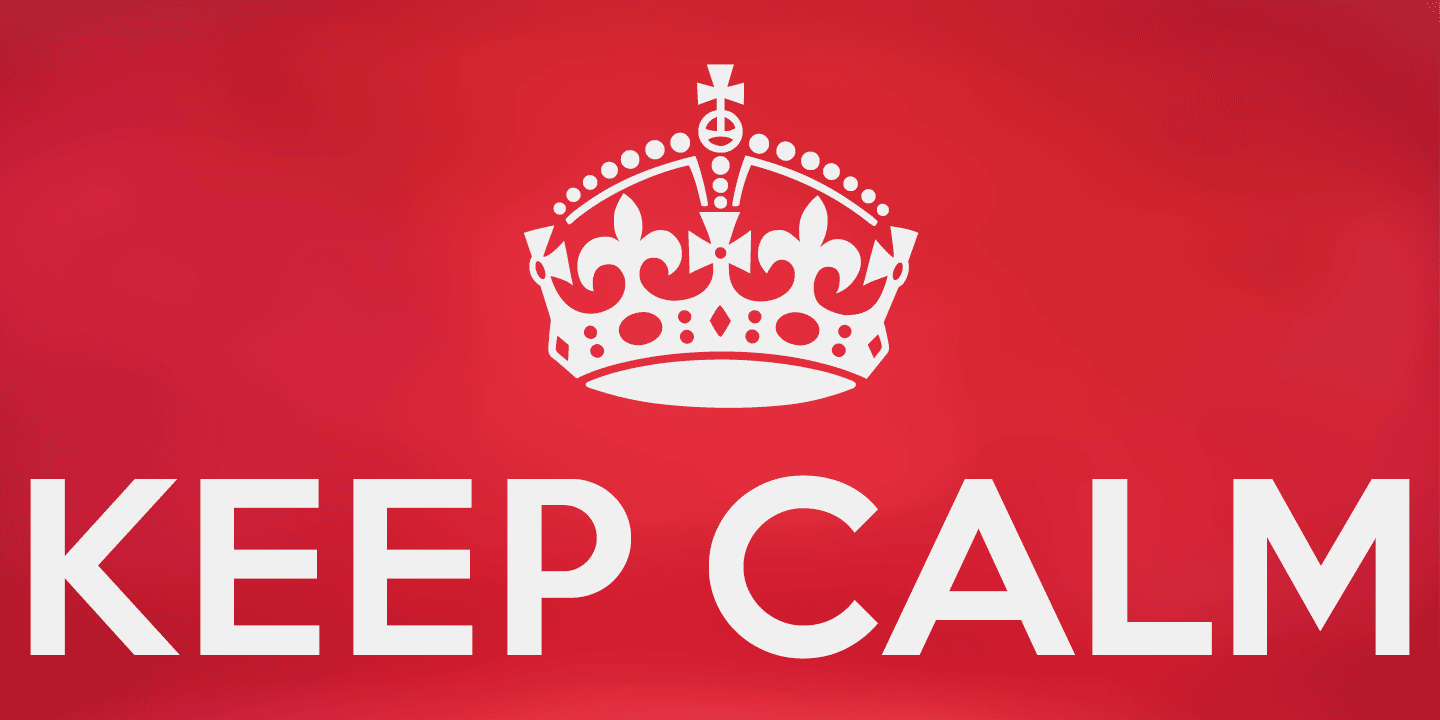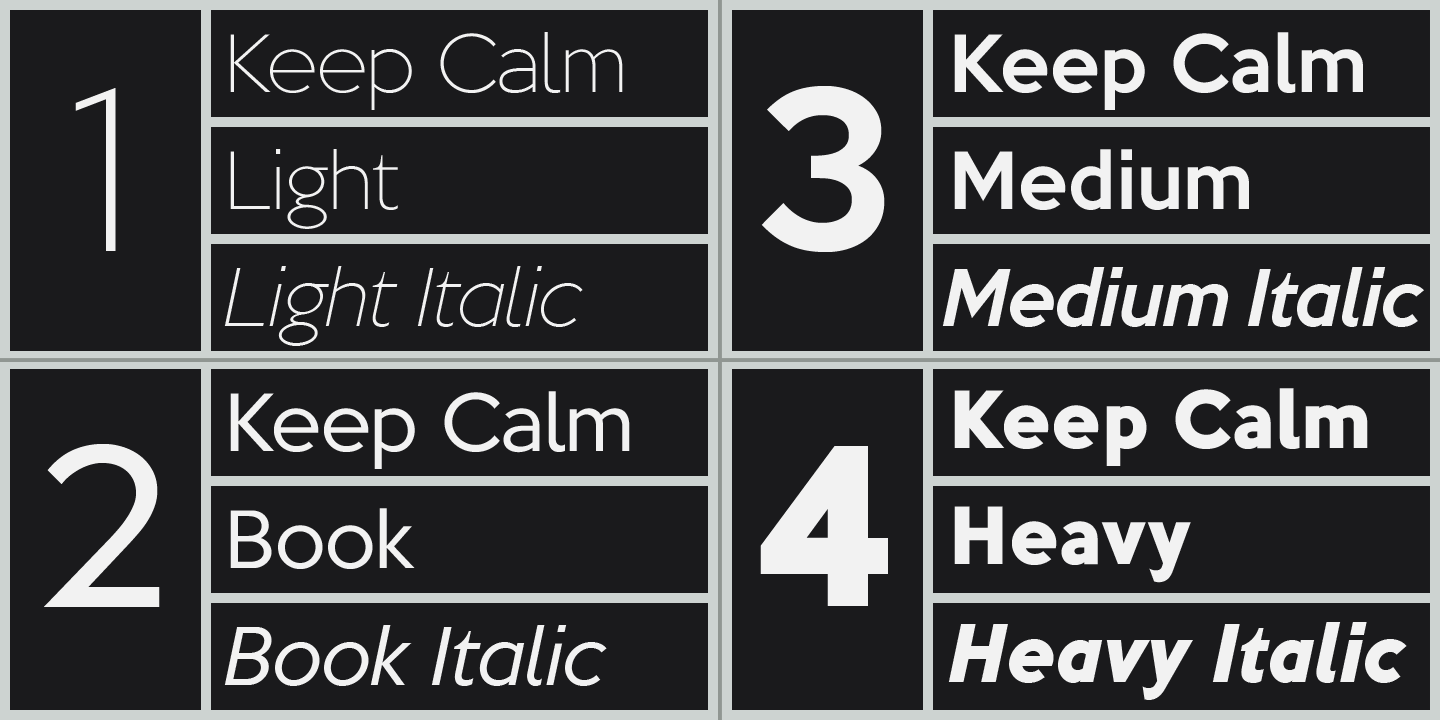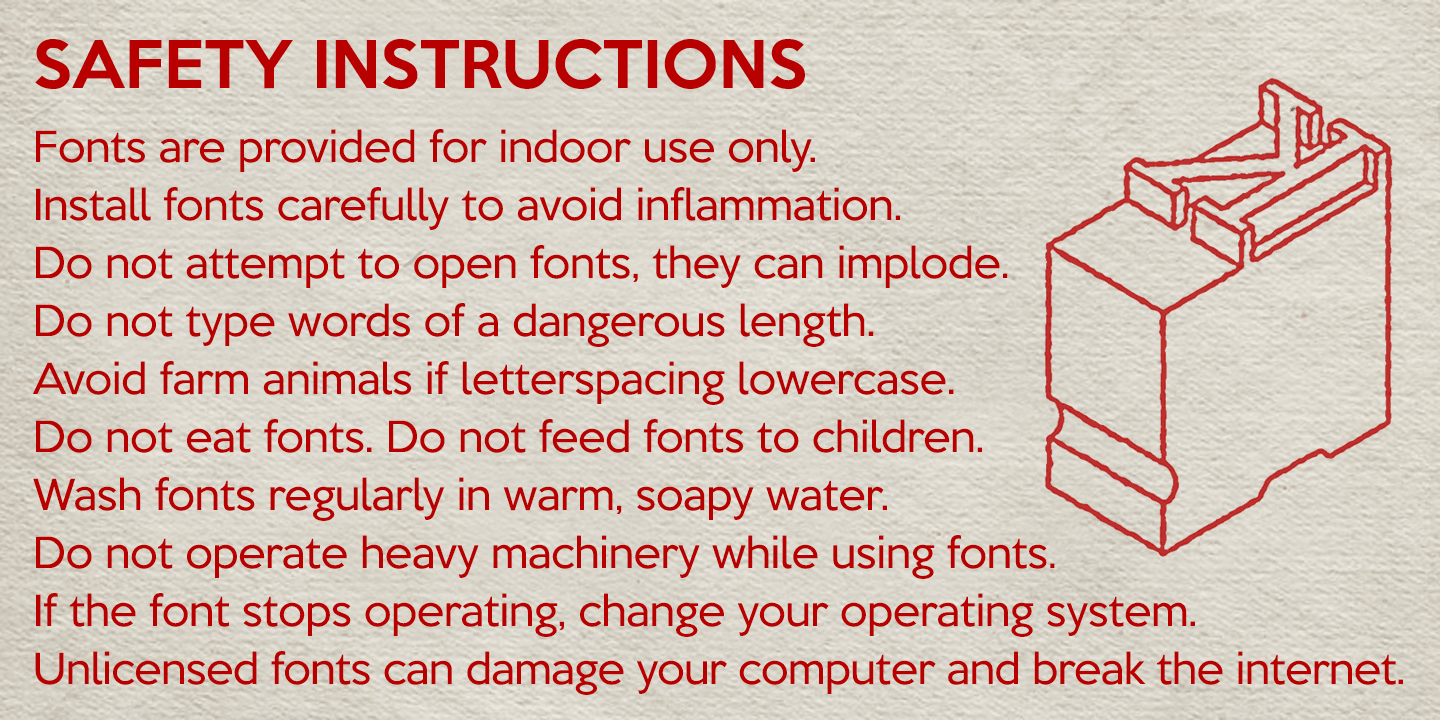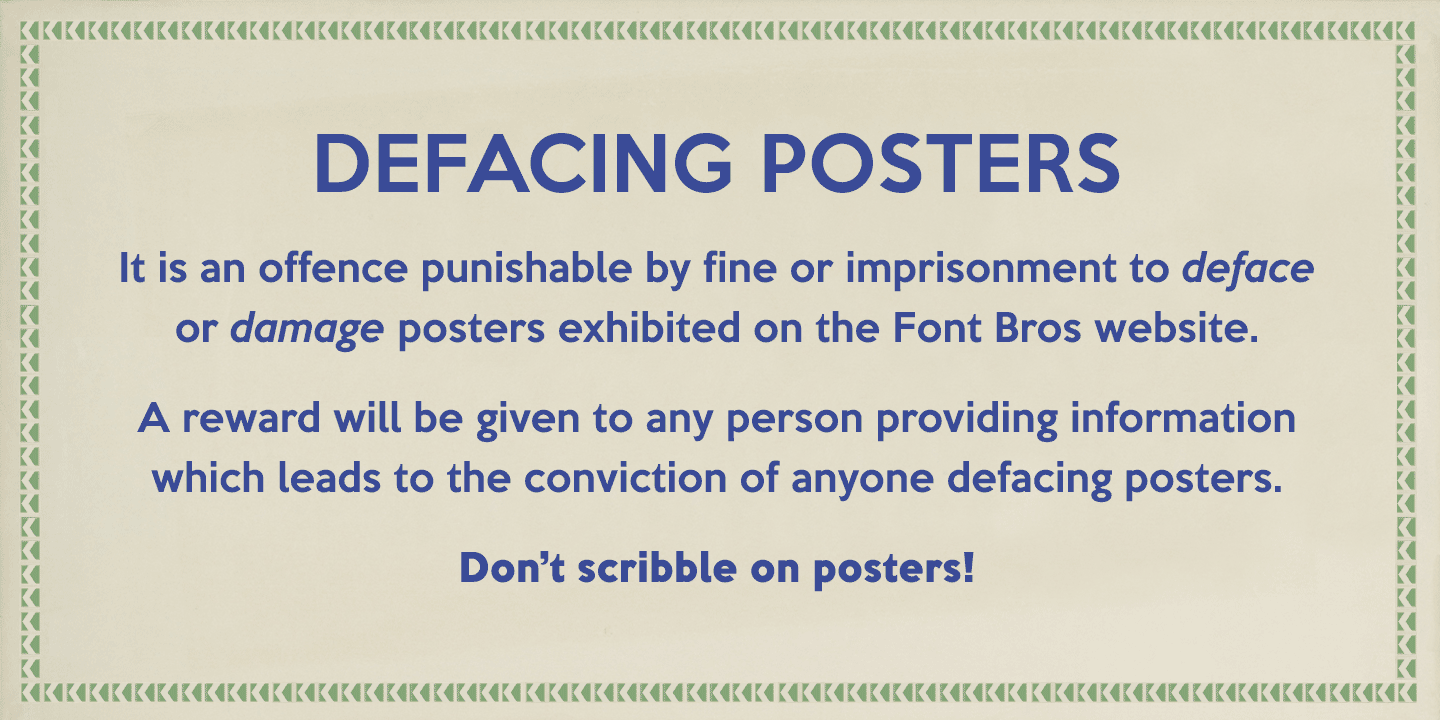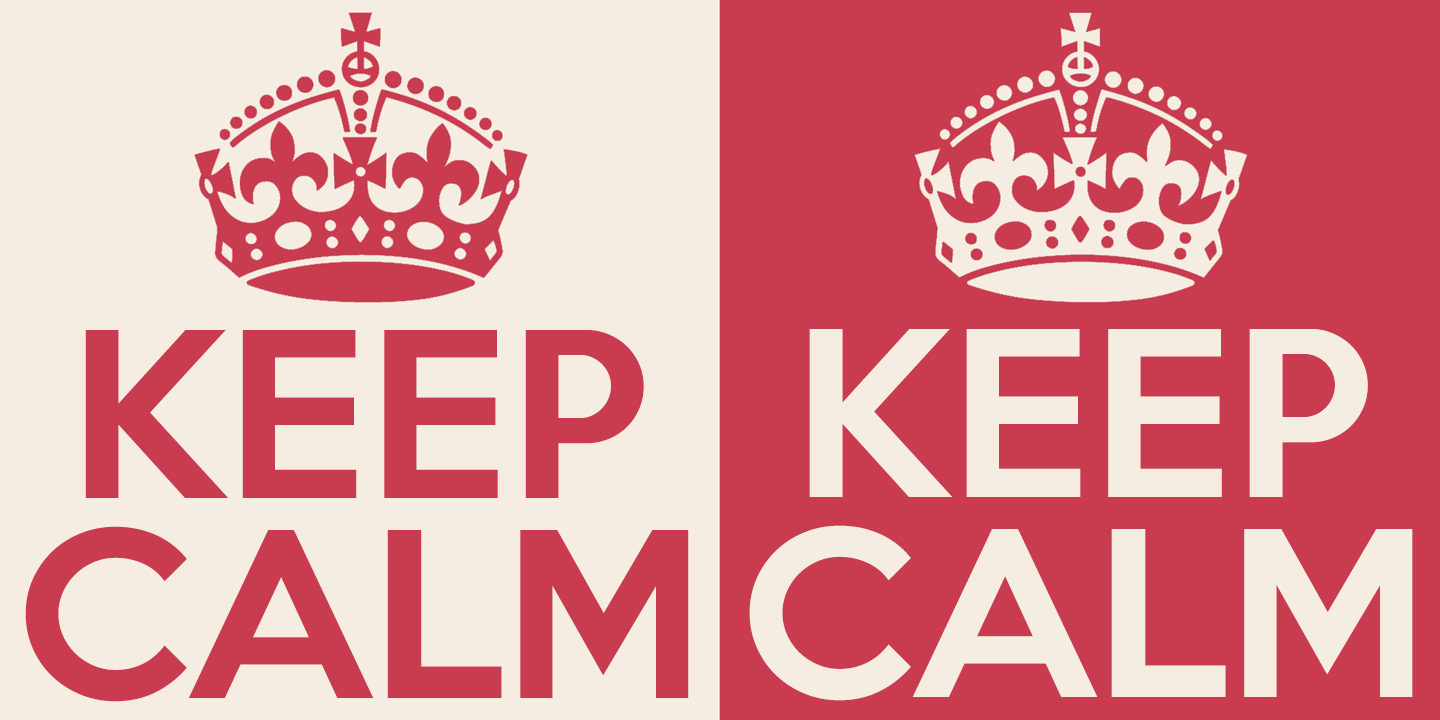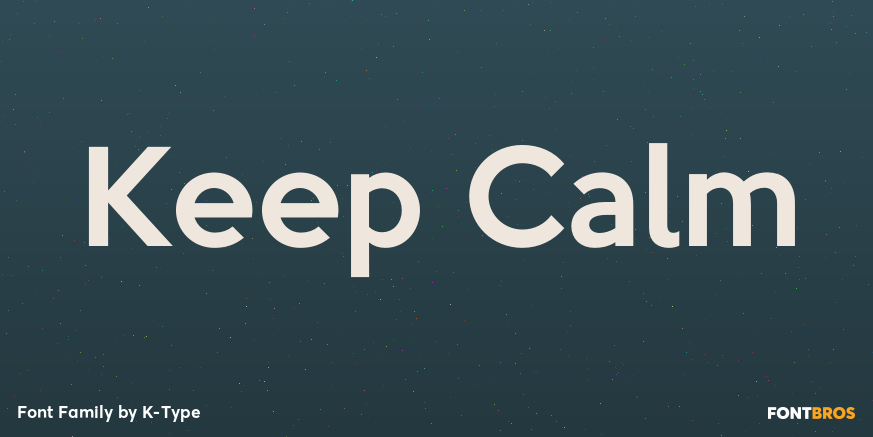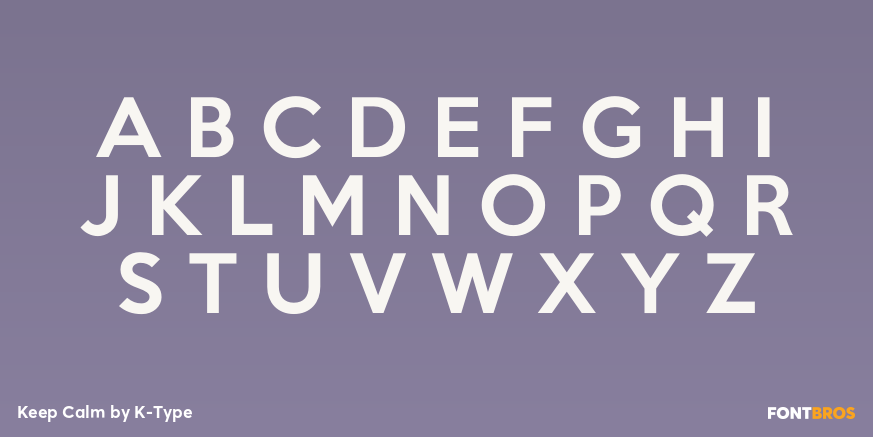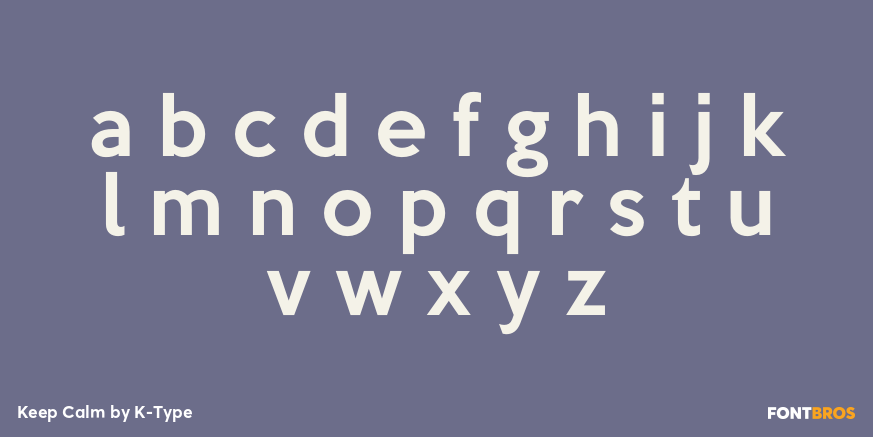
Keep Calm
Font Family by K-Type
Keep Calm is a family of fonts developed from the now famous World War 2 poster that was designed in 1939 but never issued, then rediscovered in 2000. As well as the original Keep Calm font, the Medium weight of the poster, three new weights are available ? Book (regular), Heavy and Light ? and each comes with a complimentary Italic.
Version 2.0 is a comprehensive update which consists of numerous refinements and improvements across all weights. The family now contains a full complement of Latin Extended-A characters, Welsh diacritics and Irish dotted consonants. The four italics have been optically corrected with revised, 'true italic? forms of an and f.
The crown motif from the top of the Keep Calm poster is located at the plus minus